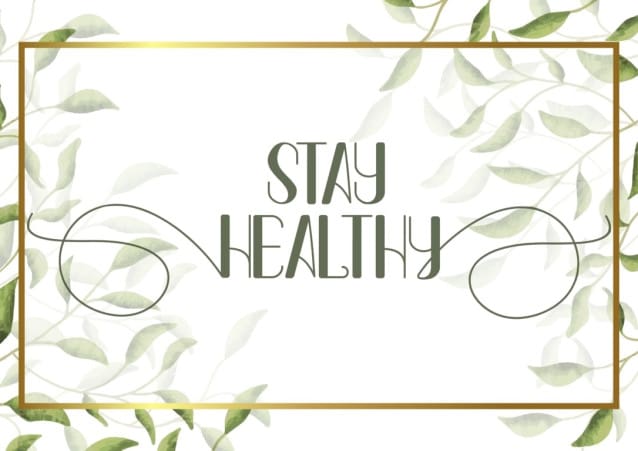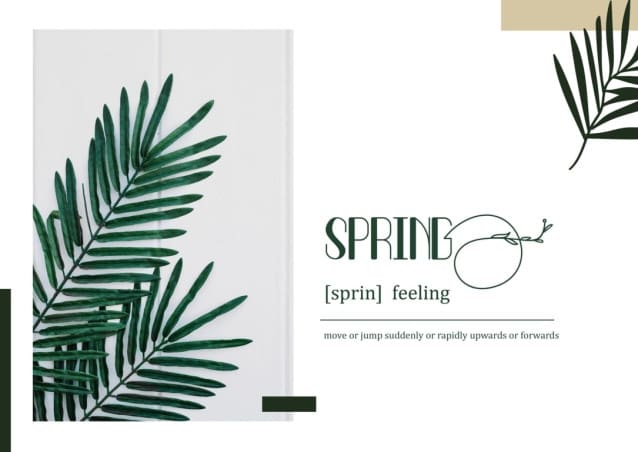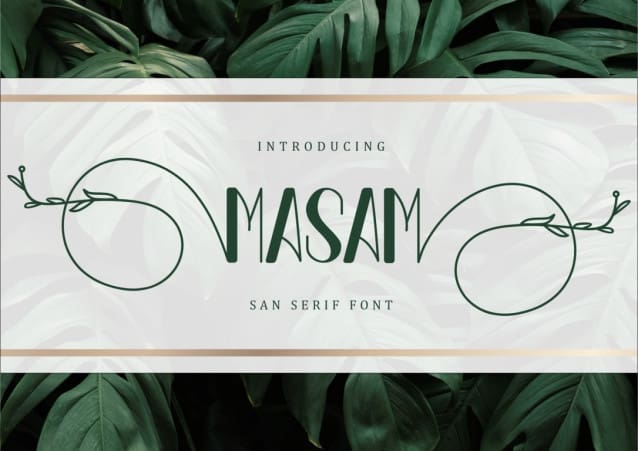
Masam Font
Masam Font is a sans serif font that embraces the enchanting essence of nature. With its distinct style, it brings a touch of uniqueness and exclusivity to your projects, infusing them with a one-of-a-kind ambiance. This font is perfect for adding a unique touch and creating a distinct atmosphere in your designs.